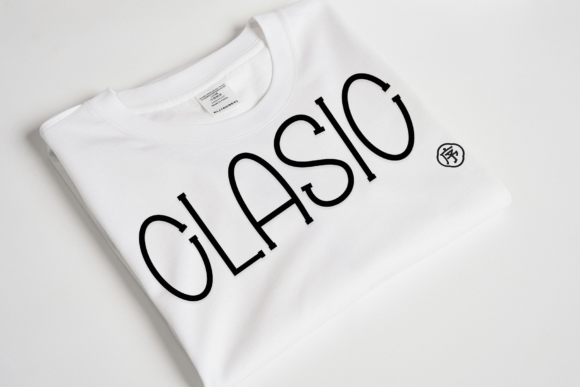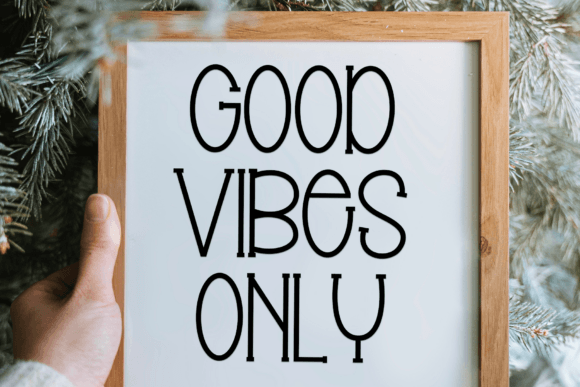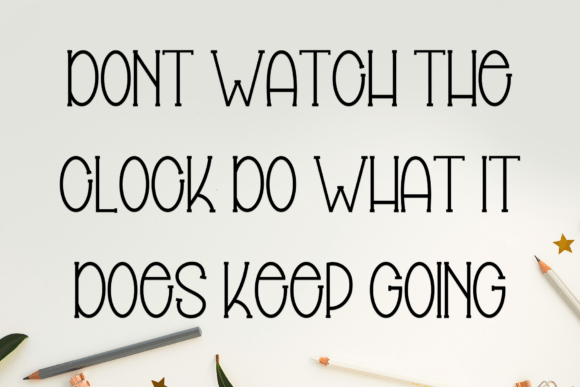
Introduction to People Charming Font
People Charming is a casual handwritten font that exudes warmth and friendliness.
Its rounded, playful strokes give a relaxed and approachable feel, perfect for personal projects, invitations, and social media graphics The font’s charming, hand-drawn aesthetic adds a delightful, whimsical touch to any design.
Key Features of People Charming Font